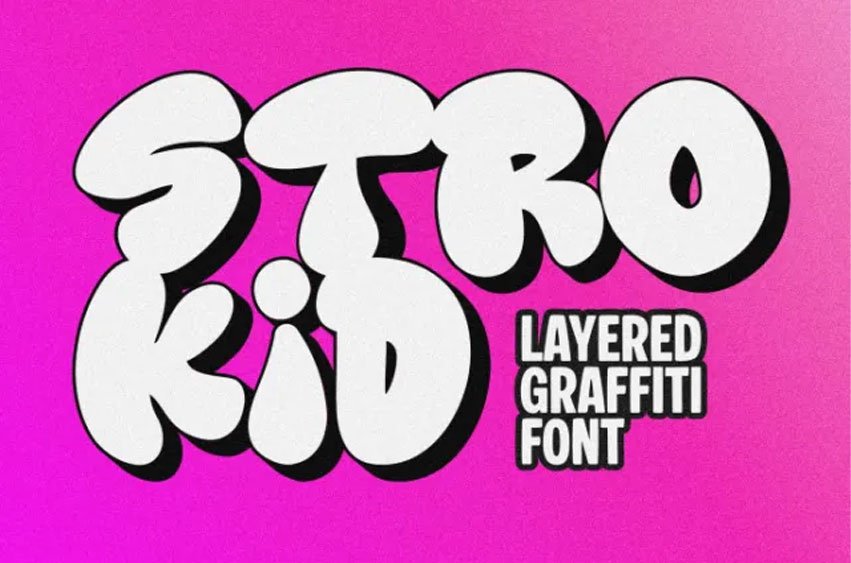
Strokid Graffiti Font 3d Graffiti Font, a dynamic typeface built for bold display use. This font combines graffiti-inspired letterforms with a dimensional 3D effect, making every word stand out clearly in both digital and print layouts.
Designed with both uppercase and lowercase characters, Strokid gives you flexibility to create expressive compositions while maintaining structure and readability. The additional shadow style enhances depth and layering, allowing you to create eye-catching typography without extra effort.
Strokid is suitable for posters, video thumbnails, gaming visuals, event graphics, headlines, and large-format designs where visibility and strong presence are essential. The 3D construction adds visual weight, helping your text remain clear even in busy compositions.